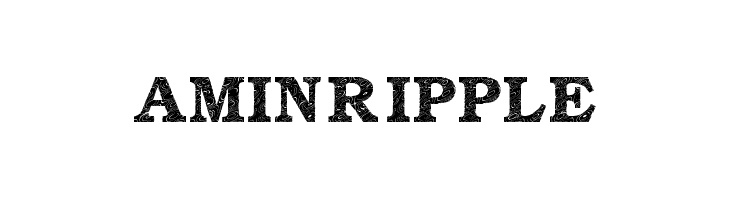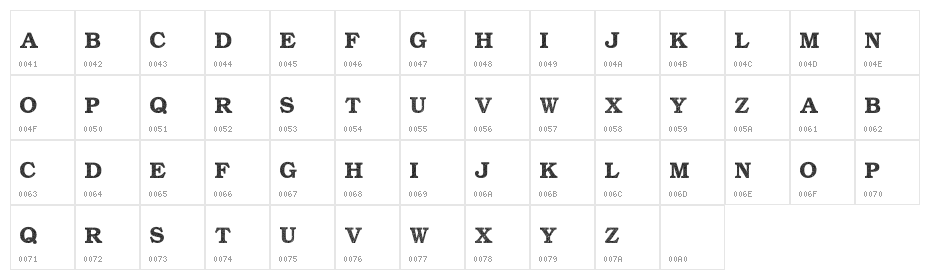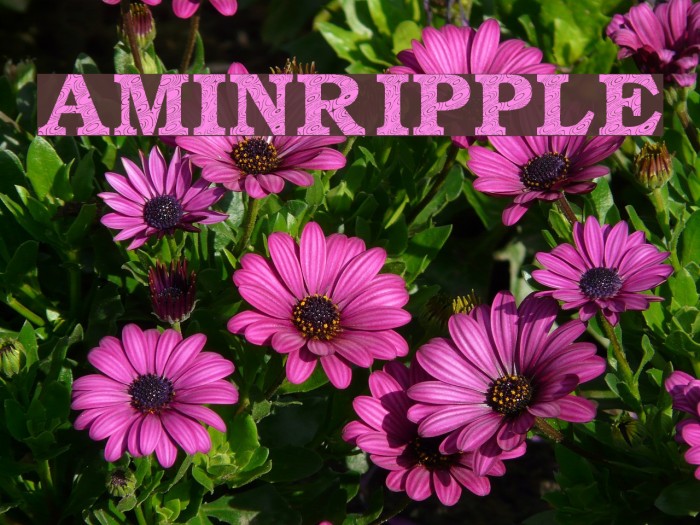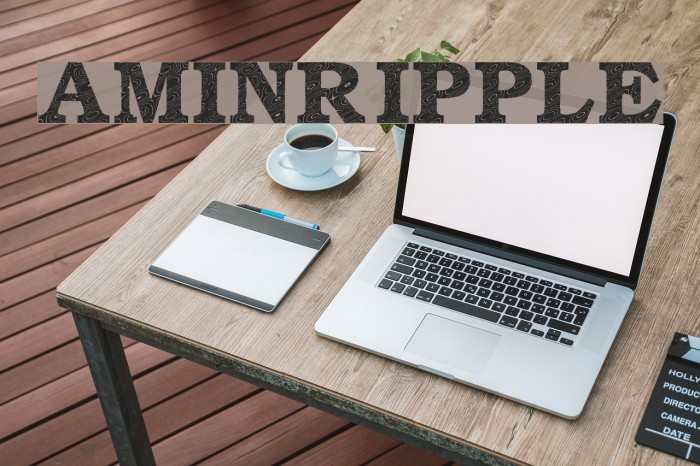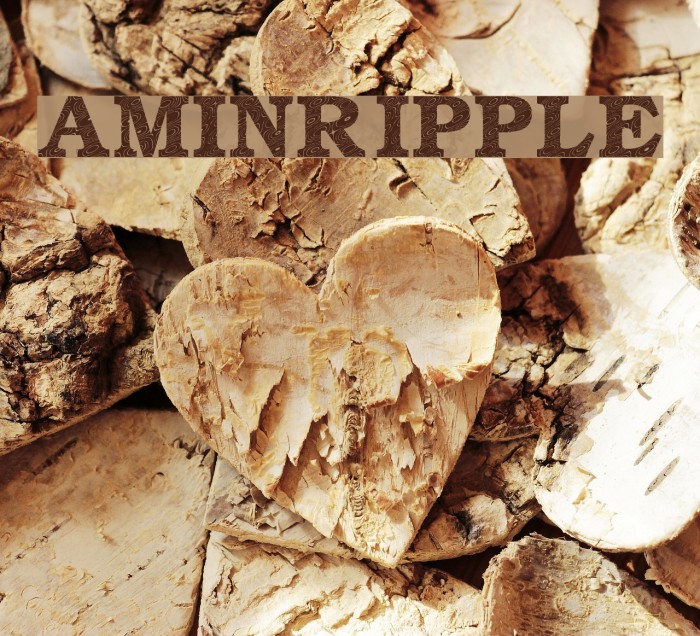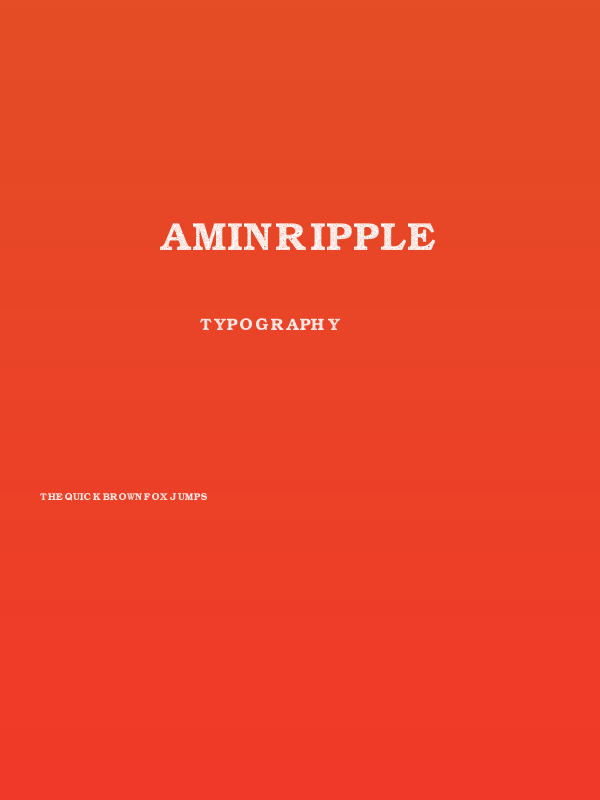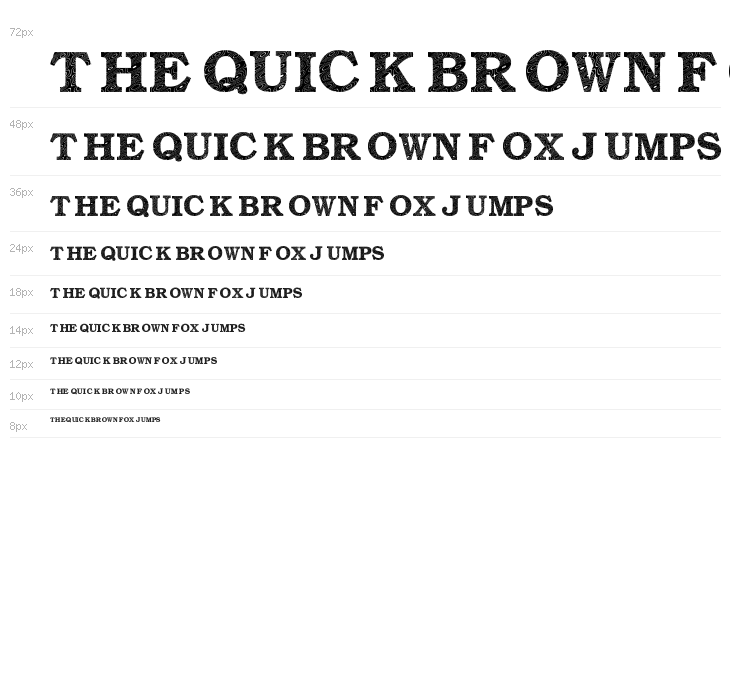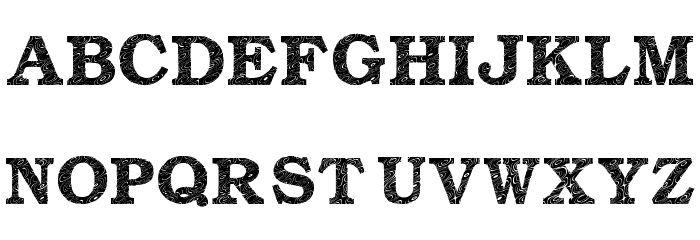
Amin_Ripple Font
Amin_Ripple Description
This font features a bold and textured design, characterized by a ripple-like pattern within each letter. The uppercase letters are prominently displayed, showcasing a strong presence with their thick strokes and intricate detailing. The font's unique texture gives it a dynamic and eye-catching appearance, making it suitable for creative and artistic projects. The overall style is both modern and decorative, offering a distinctive look that stands out in various design contexts.
| Proposed Projects | This font is perfect for posters, album covers, branding materials, and any project that requires a bold and artistic touch. |